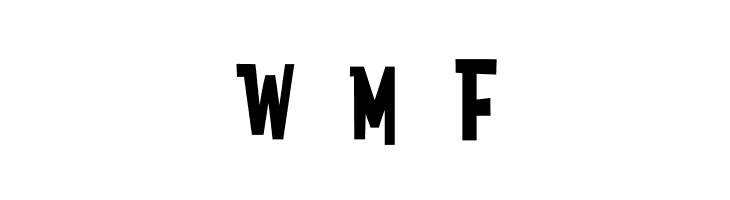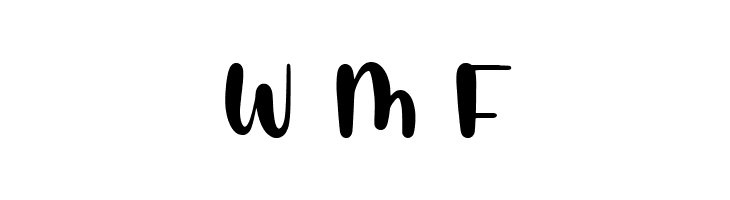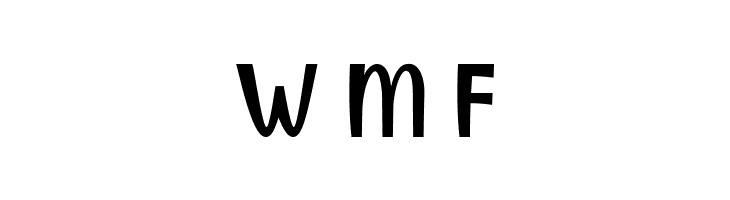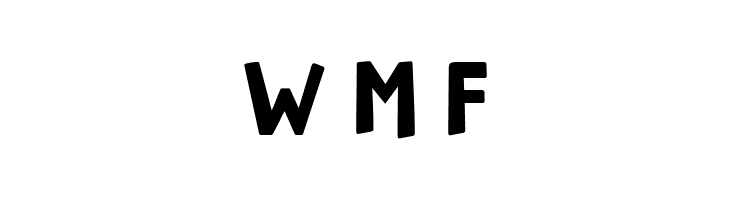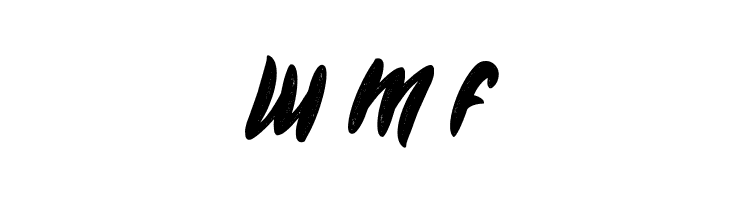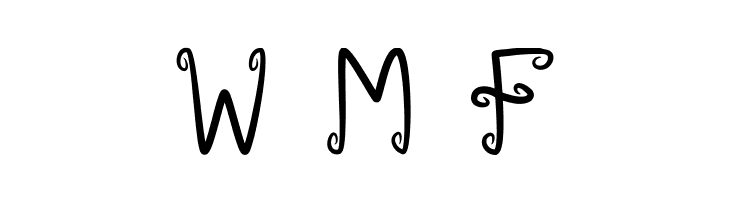
( Fonts by Graphicxell )
A playful and bold font with irregular, dynamic letterforms.
( Fonts by Joe Letter )
A bold and playful font with exaggerated curves and a whimsical style.
( Fonts by Balpirick Studio )
A playful, bold, and rounded font with a whimsical style.
( Fonts by Graphicxell )
A playful, bold font with rounded strokes and a friendly aesthetic.
( Fonts by Graphicxell )
A playful, bold font with rounded, flowing characters and a whimsical style.
( Fonts by Graphicxell )
A playful and bold font with rounded strokes and a lively appearance.
( Fonts by StringLabs Creative Studio )
A bold, handwritten-style font with dynamic, rounded characters.
( Fonts by Joe Letter )
A bold, playful font with a hand-drawn, friendly style.
( Fonts by Hardiboy Design )
A whimsical and decorative font with curly, artistic elements.
A bold, textured, hand-drawn style font with a dynamic and artistic feel.